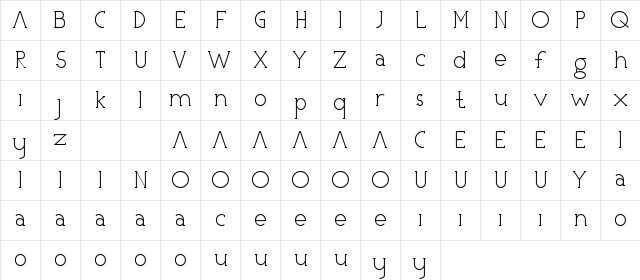
EleanorSatnightDemo Regular
| Foundry | Edric Studio |
| Designer | Deyan & Suci Anita |
Design Context for EleanorSatnightDemo Typeface
EleanorSatnightDemo is a composed and adaptable typeface that performs quietly and consistently across a wide range of design contexts.